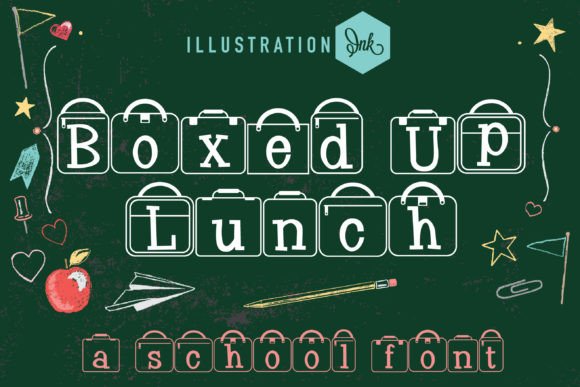
Unleash your imagination with Boxed Up Lunch Font, a delightful fusion of nostalgia and creativity!
Imagine your designs adorned with captivating letters, each nestled within a charming lunchbox. This exquisite serif typeface transports you to a realm of warmth and whimsy, where every character tells a story.
Whether you're crafting mouthwatering menus, eye-catching packaging, or heartwarming invitations, Boxed Up Lunch Font adds a tantalizing sprinkle of flavor. Its unique aesthetic exudes a nostalgic charm that evokes memories of carefree lunches and sparks imagination.
Embrace the individuality of Boxed Up Lunch Font and create designs that dance with delight and burst with personality. Each letter becomes a masterpiece, inviting you to express yourself in a way that's both playful and unforgettable.
Dive into the realm of creativity with Boxed Up Lunch Font, where your designs will become a visual feast for the eyes!